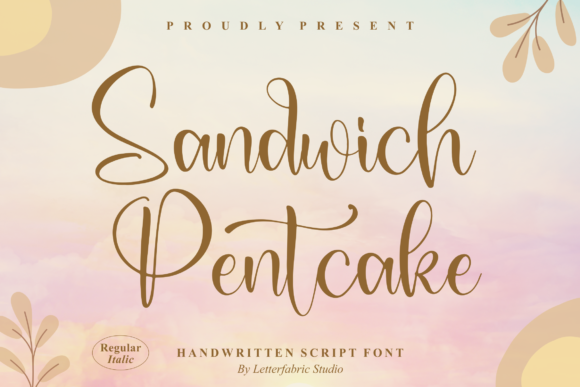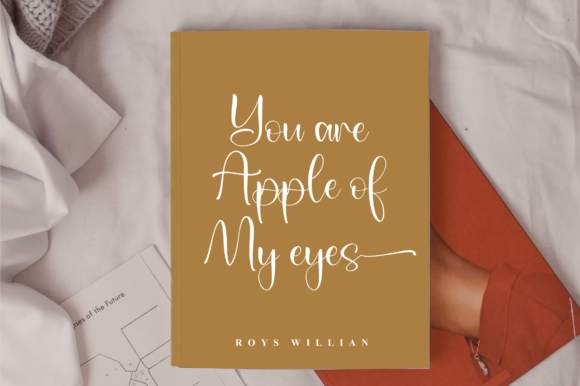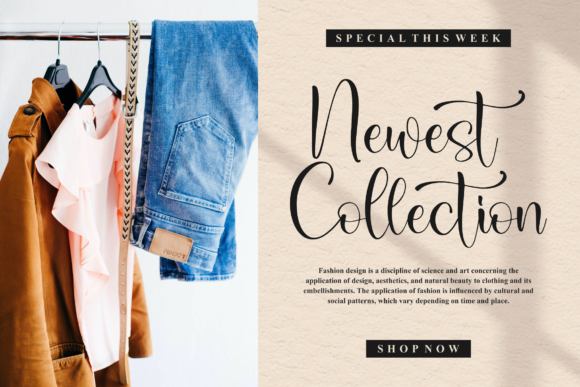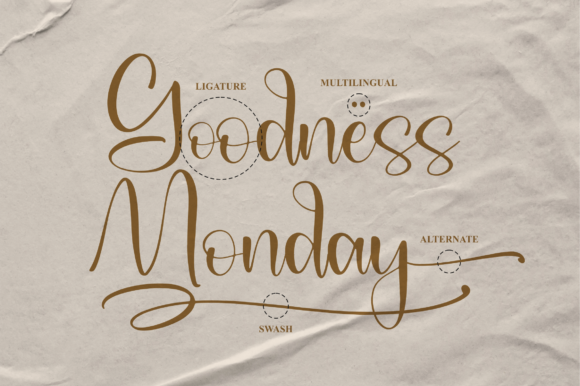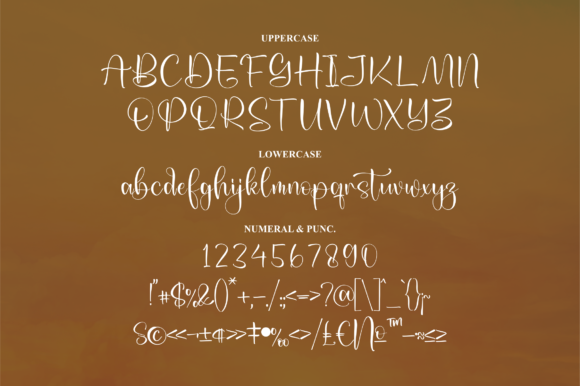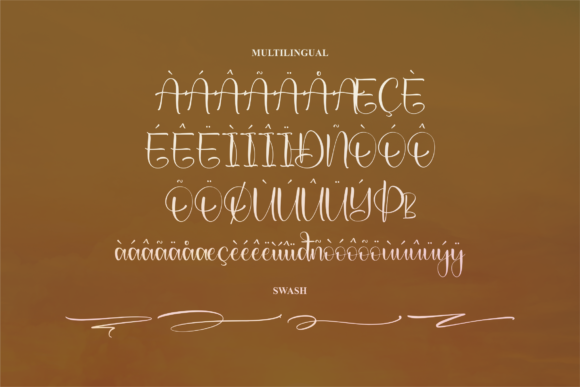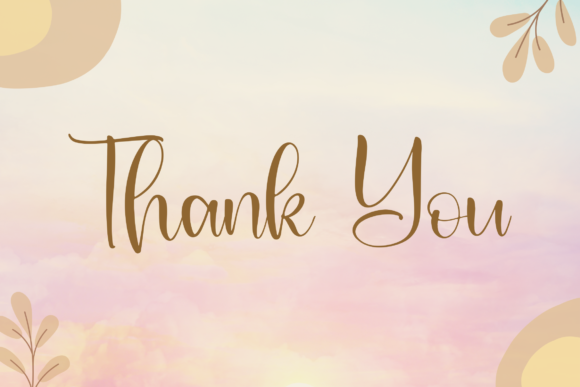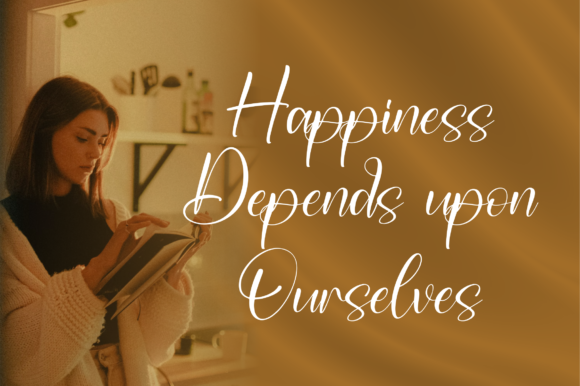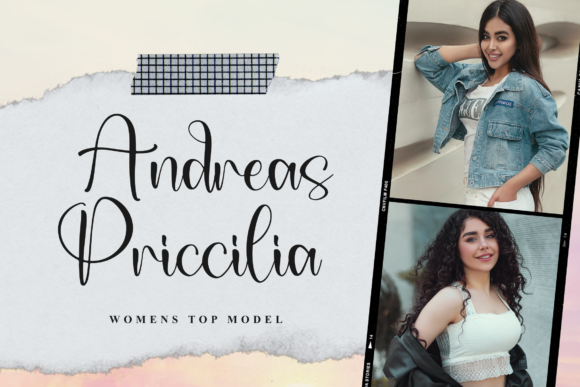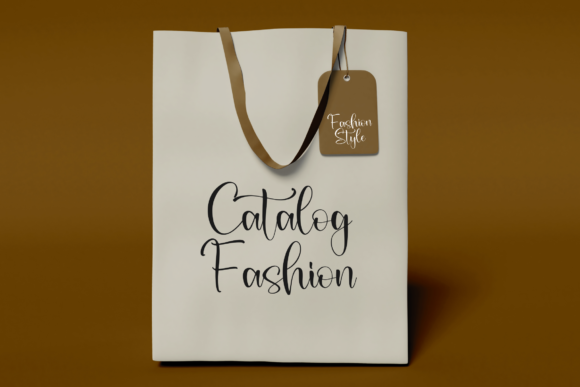
Sandwich Pentcake Font
About Sandwich Pentcake Font
Sandwich Pentcake is a flowing and delicate handwritten font that embodies charm and elegance in every character. Use it for projects that need lovely, romantic typography! This font is PUA encoded, which means you can access all of the glyphs and swashes with ease!